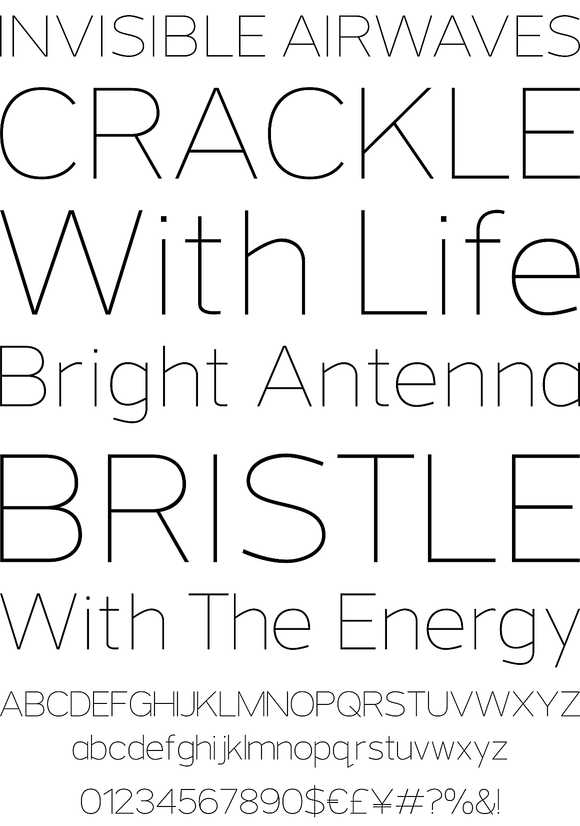
Grey Sans is a contemporary sans with an angular design. Routed in both modern geometry and historical handwriting, Grey Sans bridges the gaps of neutrality and warmth, precision and humanism, and serious and fun.
Grey Sans is a contemporary sans with an angular design. Routed in both modern geometry and historical handwriting, Grey Sans bridges the gaps of neutrality and warmth, precision and humanism, and serious and fun. Grey Sans covers the grey areas of typeface design.